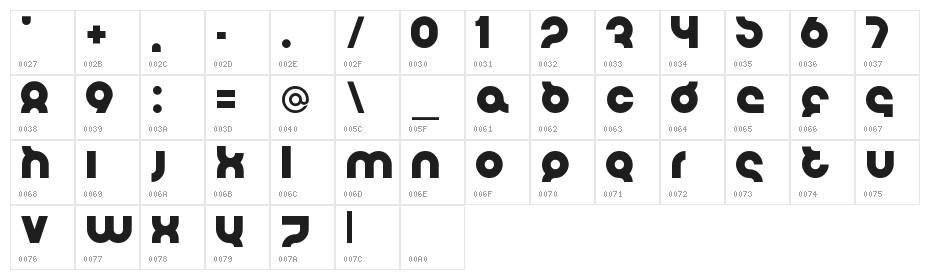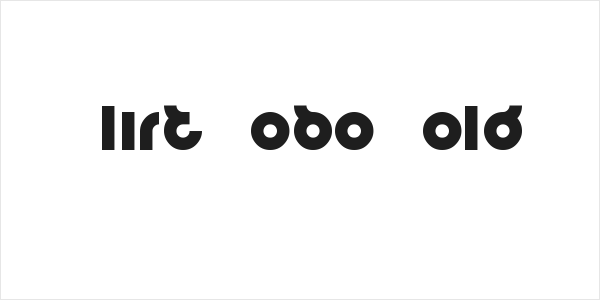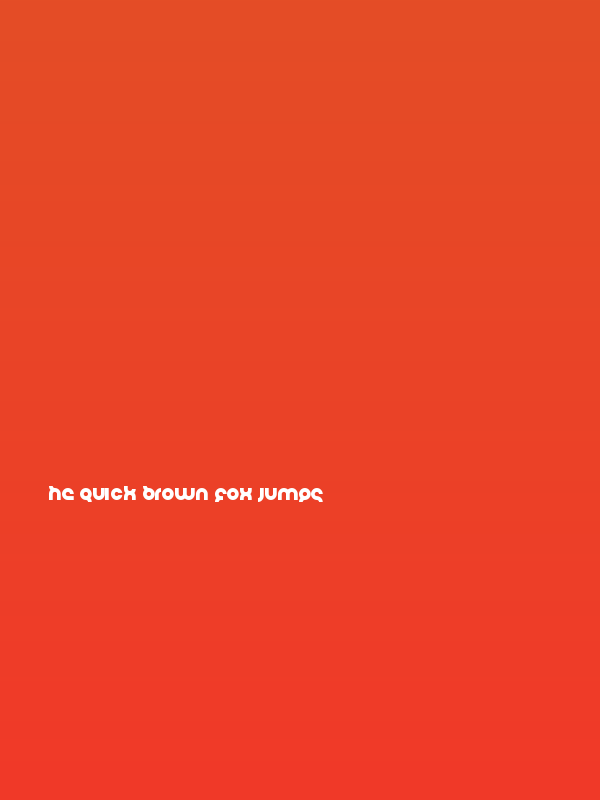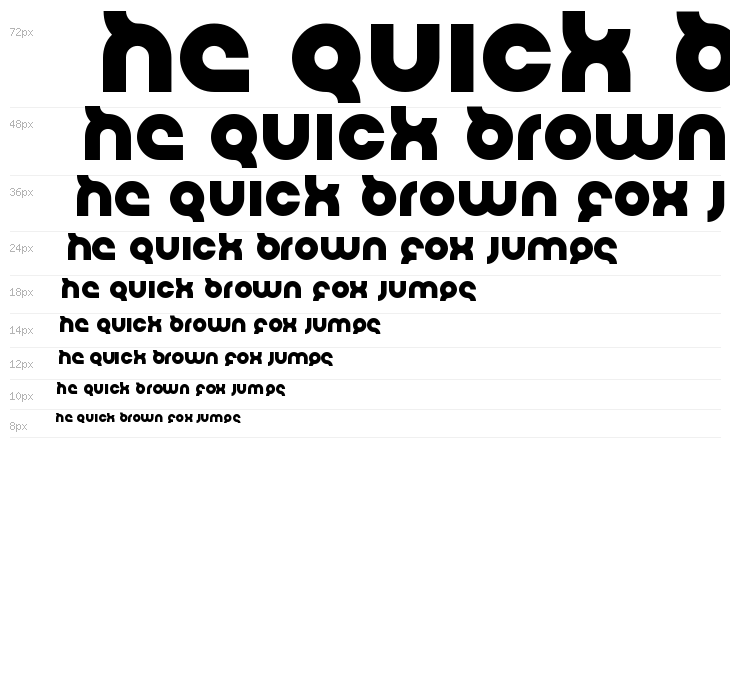
Flirt Bobo Bold Font
Flirt Bobo Bold Description
This font features a bold and playful design with rounded edges and a strong geometric influence. The characters are thick and uniform, creating a sense of stability and modernity. The circular shapes and consistent stroke width give it a friendly and approachable appearance. It maintains a consistent baseline, contributing to its clean and structured look. The font's unique style is evident in its distinctive letterforms, which are both eye-catching and easy to read. Its boldness makes it suitable for attention-grabbing designs.
| Proposed Projects | Ideal for branding, posters, headlines, and any design that requires a modern and bold statement. |